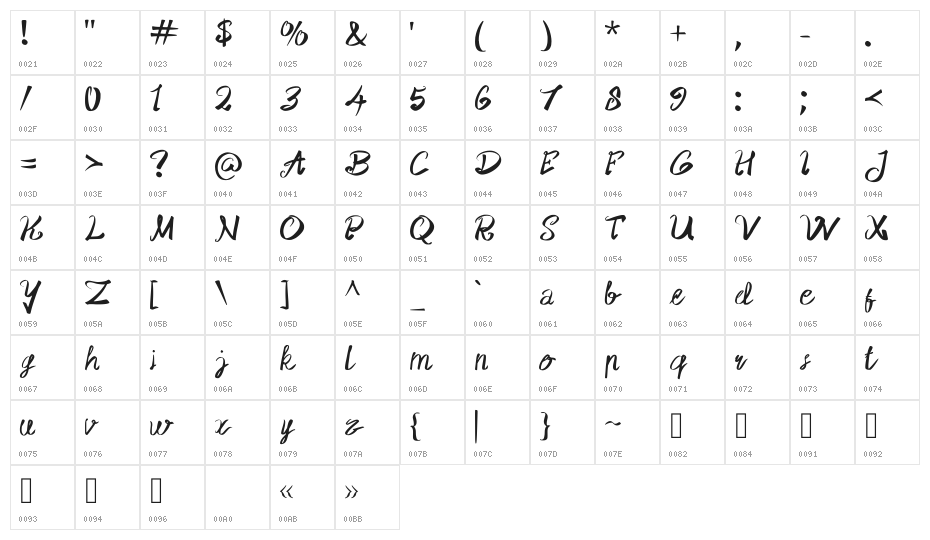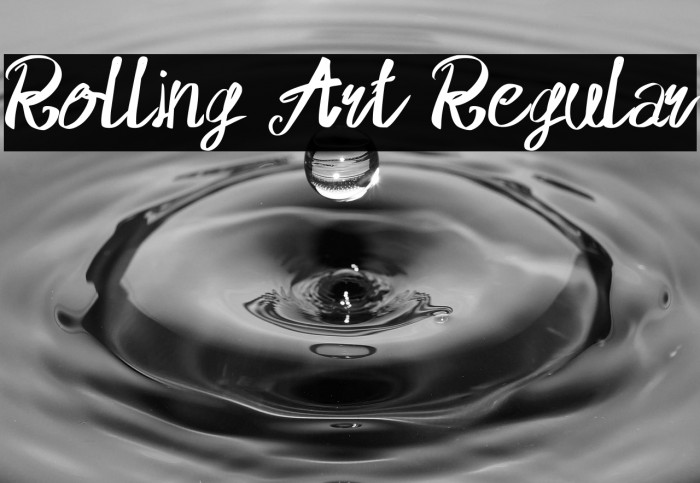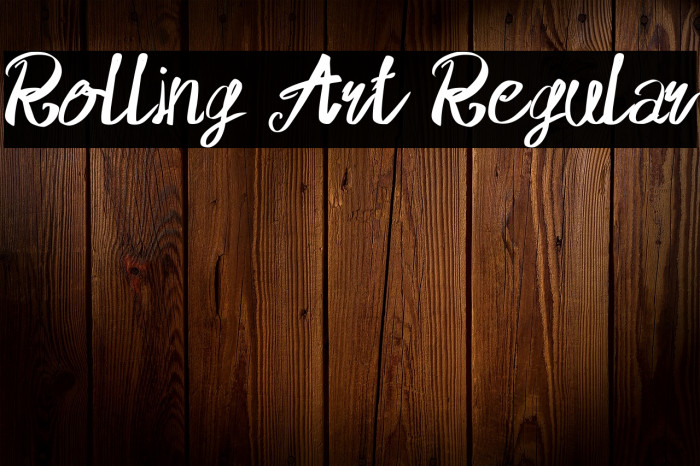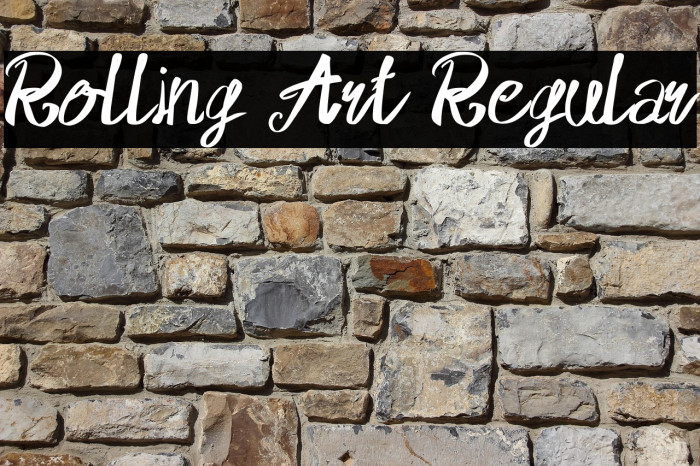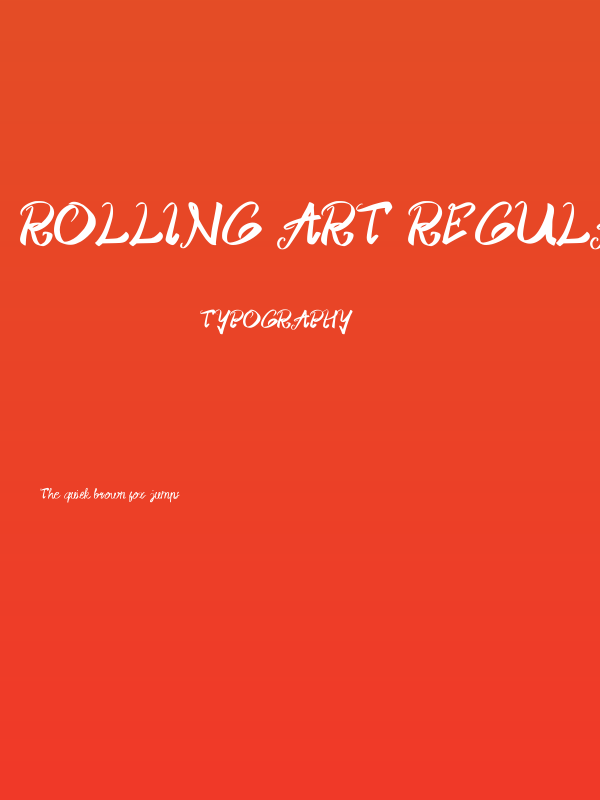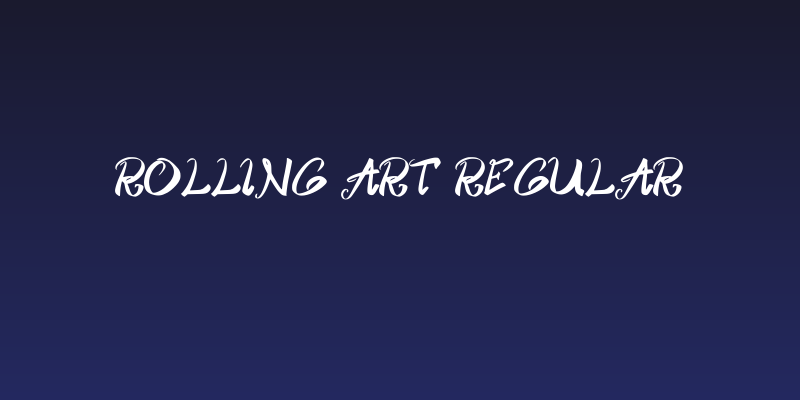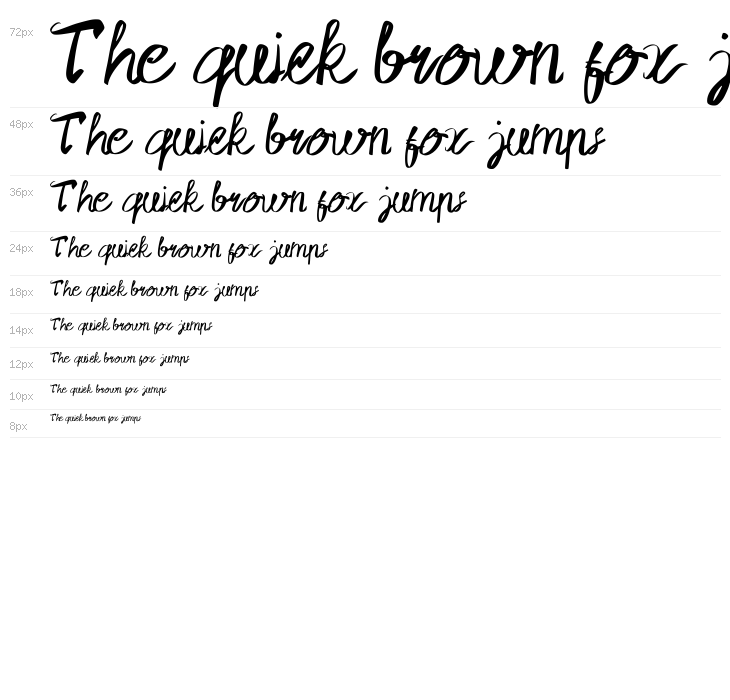
Rolling Art Regular Font
Rolling Art Regular Description
A bold, flowing script font with a handwritten style, featuring smooth curves and a dynamic, artistic flair.
| Proposed Projects | Invitations, greeting cards, artistic branding. |